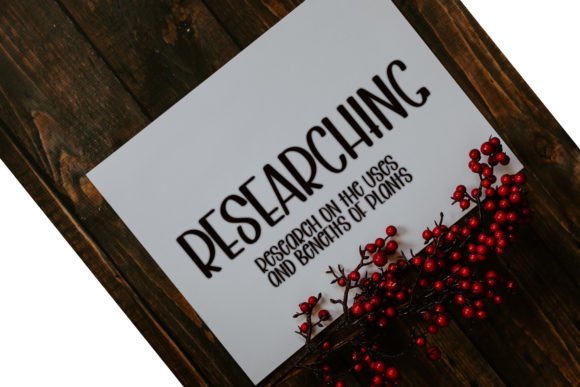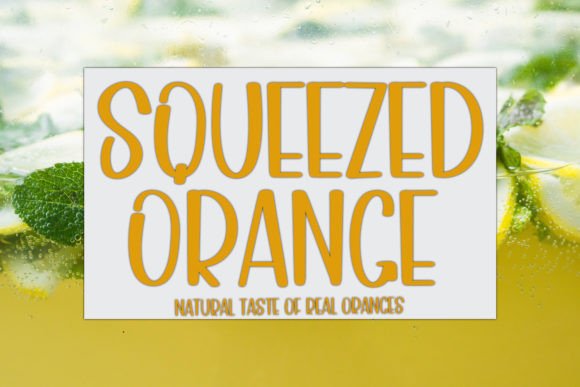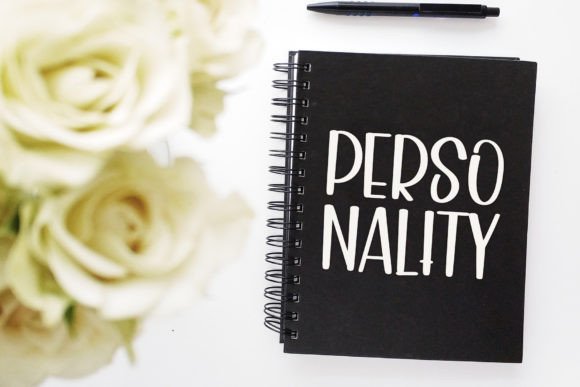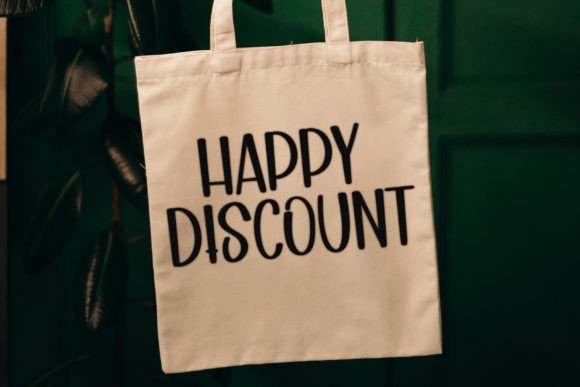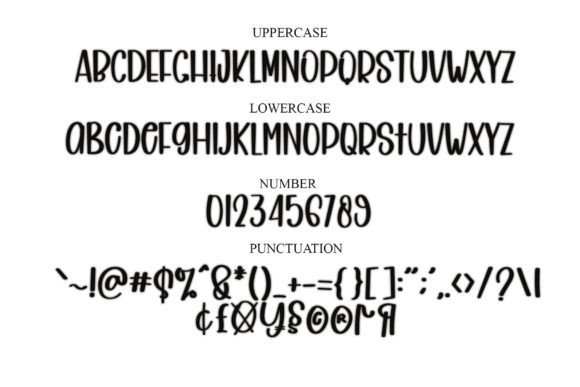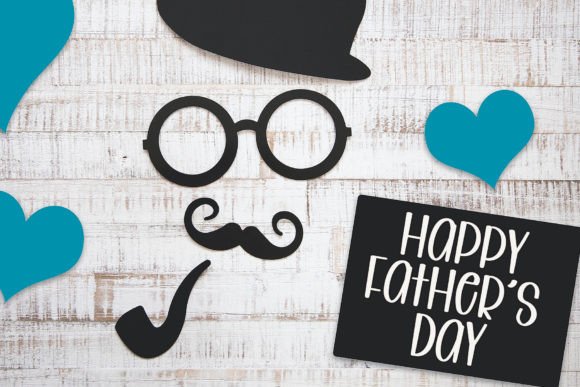
Introduction to Home Page Font
Do you remember that moment when a font choice made all the difference in your design project? Maybe it was a wedding invitation, a birthday card, or a social media post – whatever it was, you probably felt a rush of excitement and satisfaction when everything came together perfectly. That’s what we’re talking about when we say the right font can elevate your creative project to the next level. And speaking of the perfect font, let’s dive into the world of Home Page Font, a high-quality design resource that’s about to become your new favorite.
Whether you’re a seasoned designer or a DIY enthusiast, Home Page Font is a valuable addition to your toolkit. With its timeless style and transparent background, this font is perfect for creating stunning designs that demand attention. And the best part? It’s available for free download, making it an accessible design resource for anyone looking to take their creative project to new heights.
Key Features of Home Page Font
- High-Quality Design: Our Home Page Font is designed to meet the highest standards of typography, making it perfect for any creative project.
- Transparent Background: The font comes with a transparent background, allowing for seamless integration with any design or layout.
- High-Resolution Design: The font is designed at 300 DPI, making it perfect for high-resolution printing and digital displays.
- Unique Character Set: Our Home Page Font features a unique character set, including a range of special characters and glyphs, making it perfect for creative projects that require a distinctive look.
Honest Review: Home Page Font
I recently stumbled upon the Home Page Font, and I must say it’s been a great addition to my design resources. This high-quality font is perfect for any creative project that requires a clean and modern look.
- ✨ Comes in a variety of weights and styles, making it versatile for use in different design contexts.
One thing to note is that the Home Page Font may not be suitable for all design projects. ⚠️ For instance, it may not be the best choice for projects that require a more dramatic or ornate look, as it tends to lean towards a minimalist aesthetic.
The Home Page Font is commonly used for headings, titles, and other prominent text elements in designs. It’s a great choice for any creative project, from brochures and flyers to websites and social media graphics.